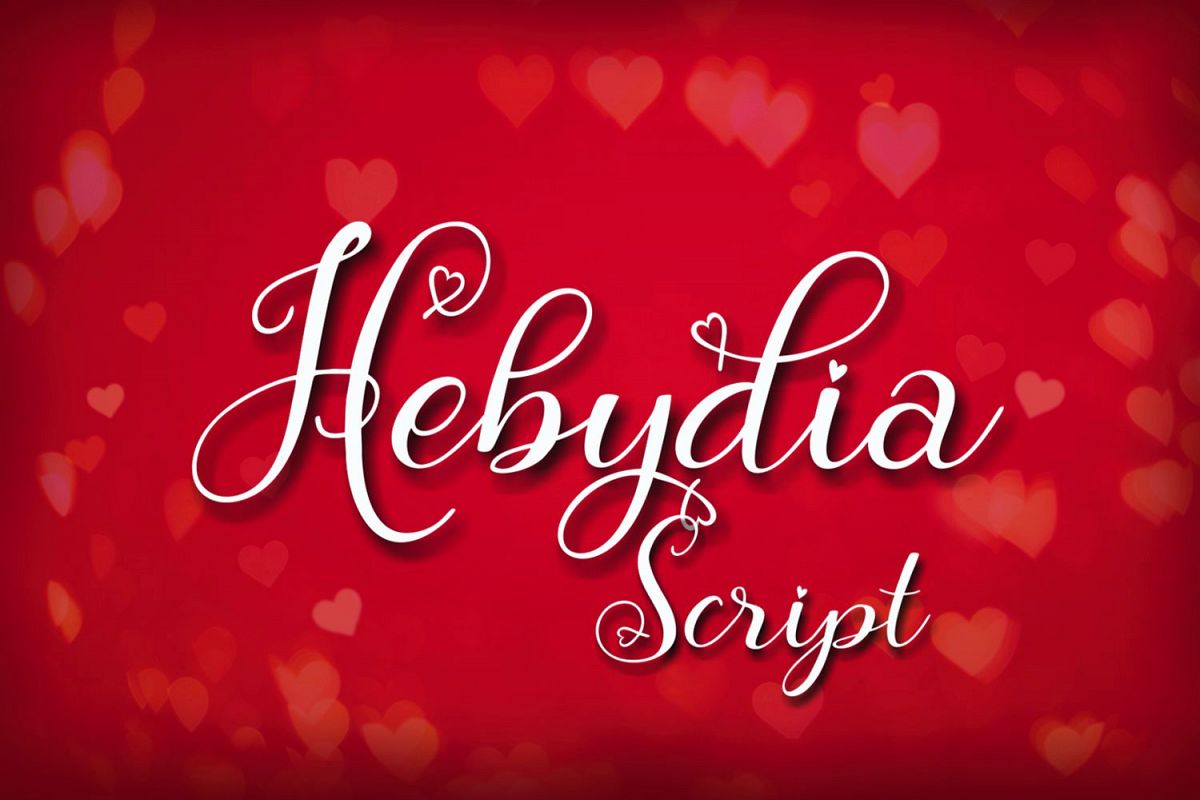
Hebydia
Hebydia is a versatile, hearts decorated easy to use font.
By combining letters and basic characters you can easily get access to the swashes.